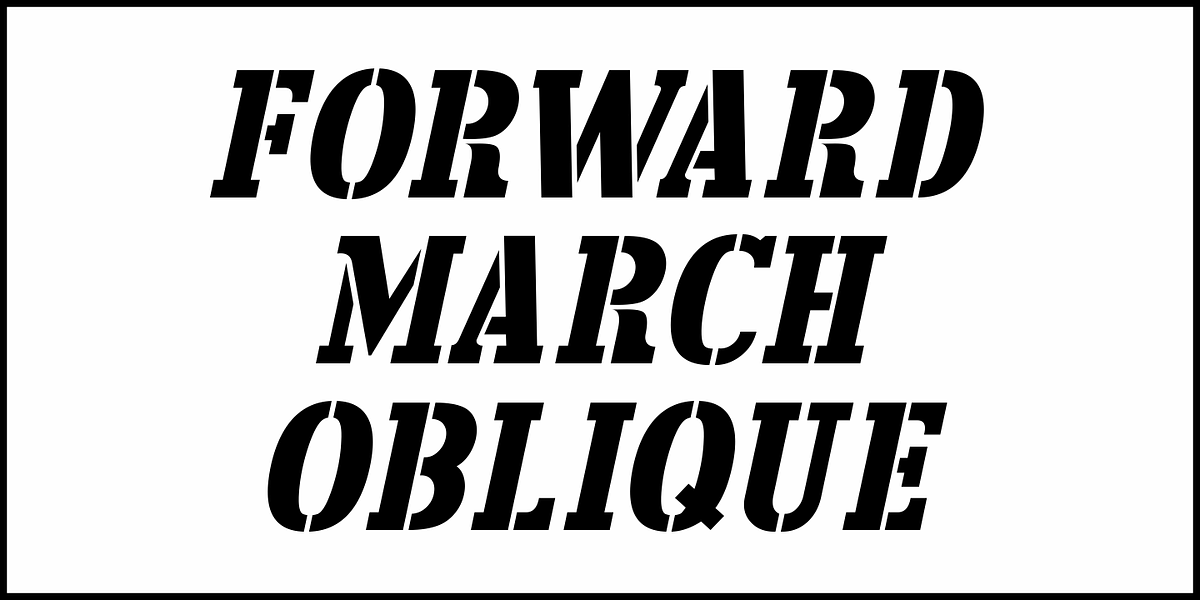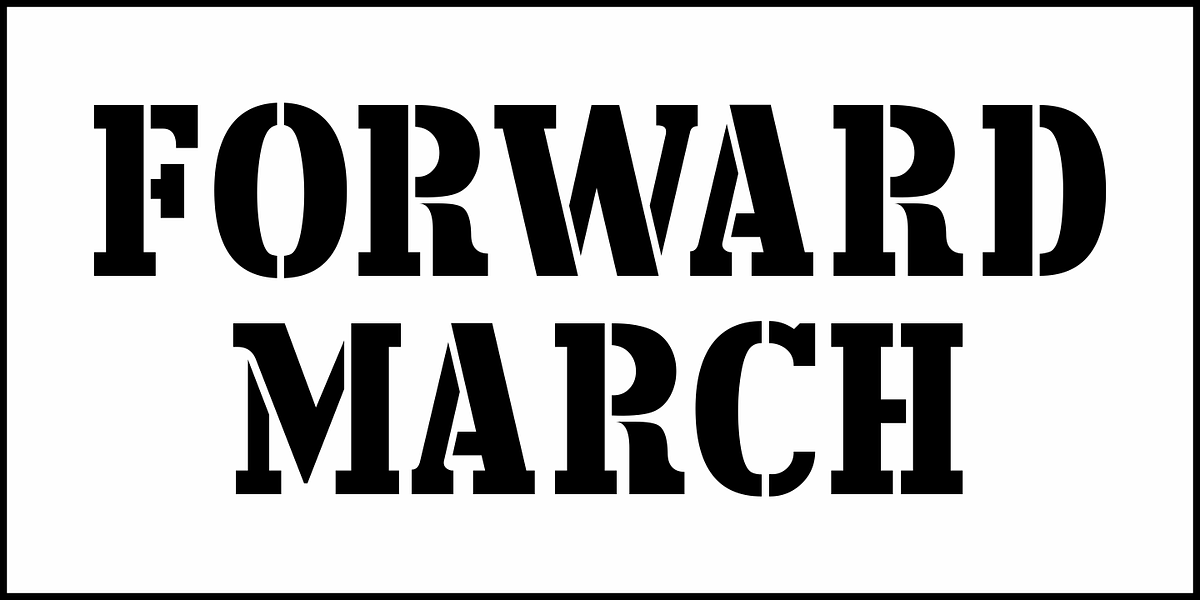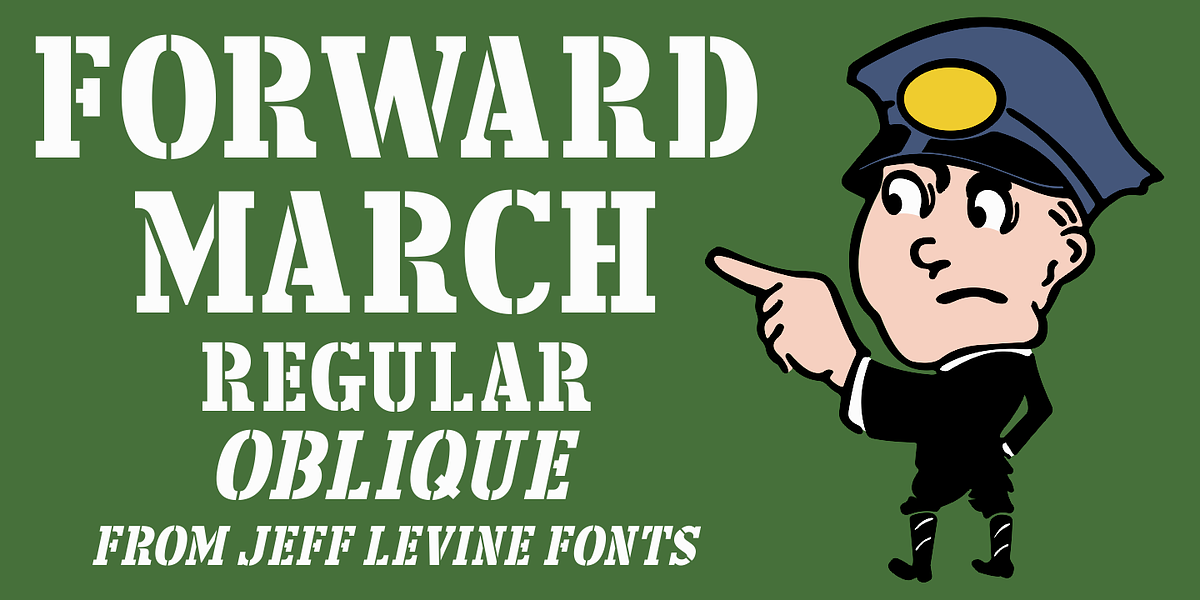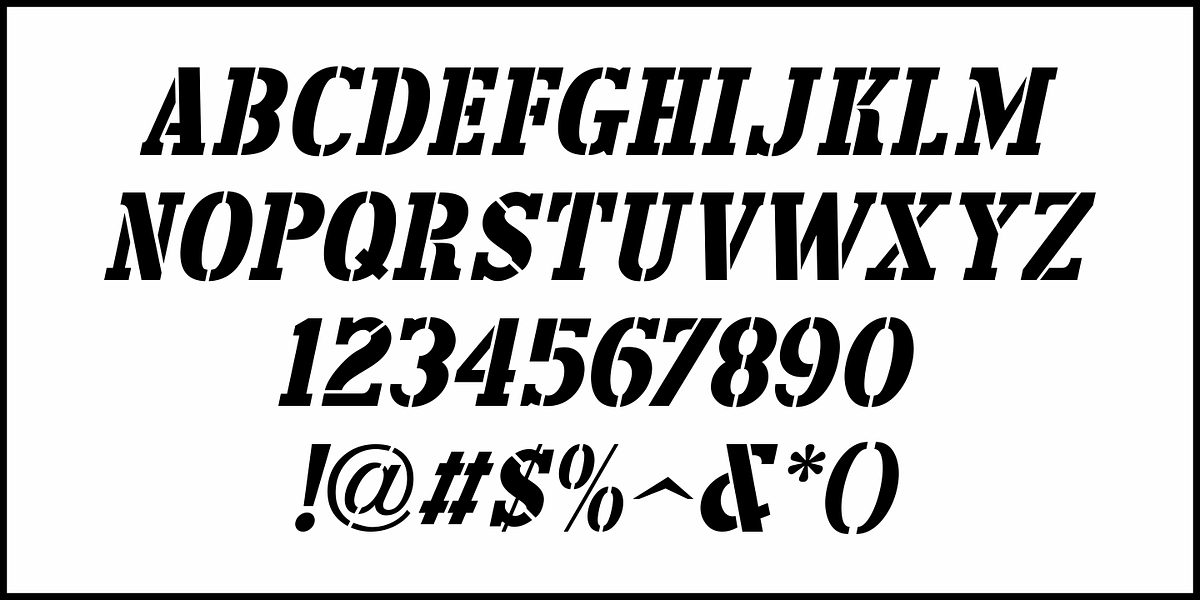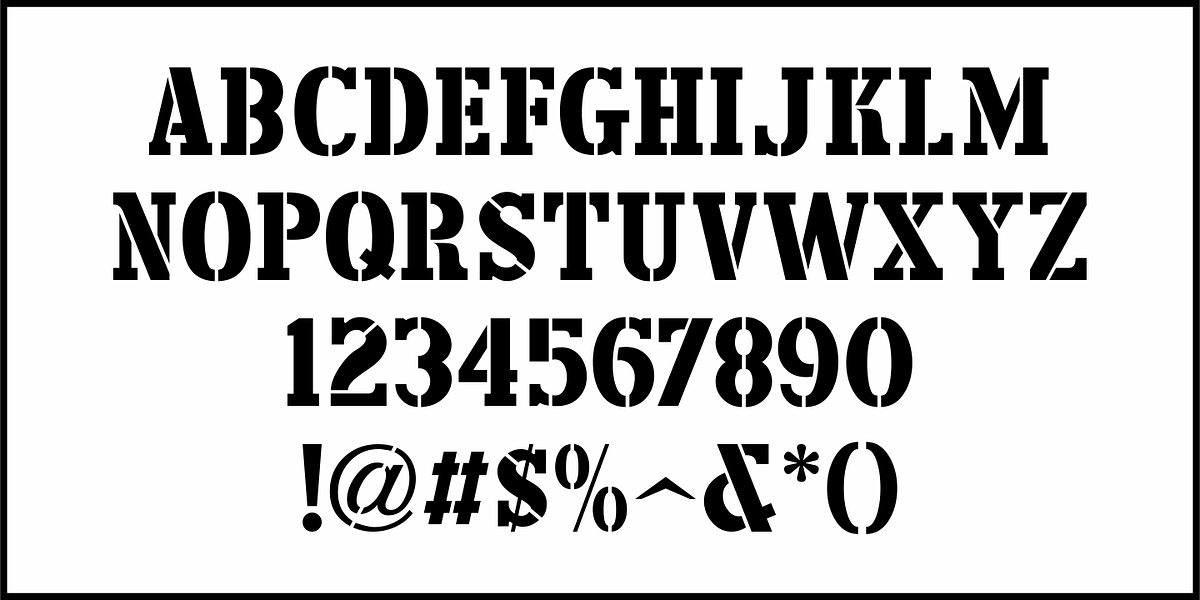
Forward March JNL
An ad for the film "Marine Raiders" in the June 16, 1944 issue of Motion Picture Daily features the movie's title hand lettered in a bold, slab serif stencil design.
This is now available as Forward March JNL in both regular and oblique versions.